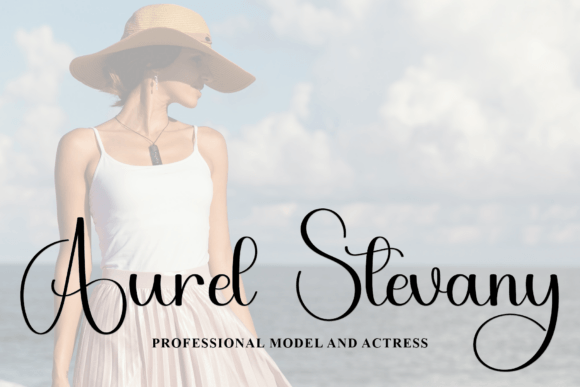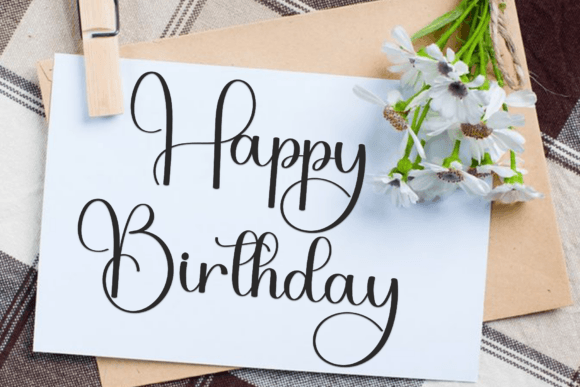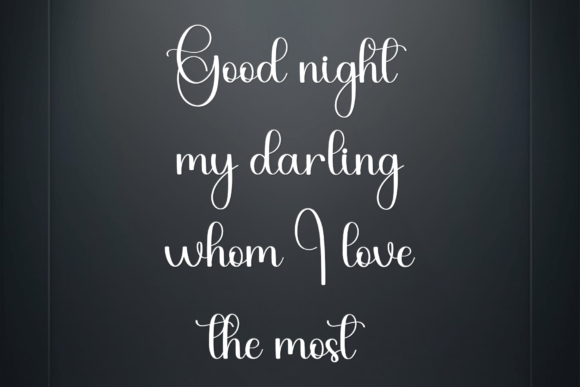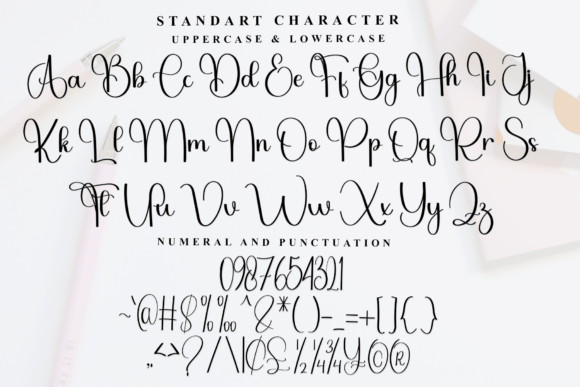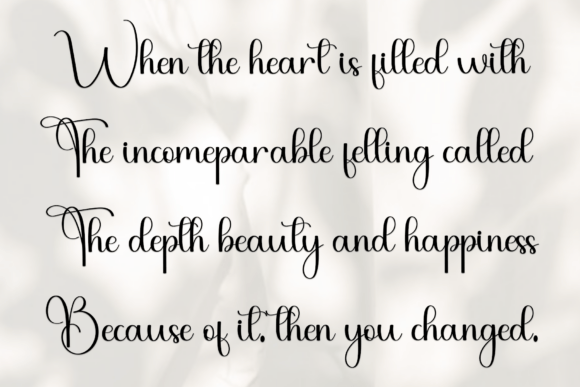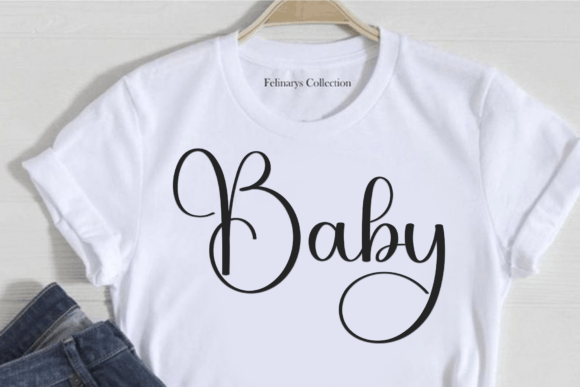
Introducing Biography Font: The Perfect Blend of Warmth and Creativity
Are you tired of using the same old fonts for your personal projects, invitations, and social media graphics? Look no further than Biography Font, a casual and creative typeface that exudes warmth and friendliness. With its round, playful strokes, this font creates a relaxed and approachable feel that’s perfect for designers and crafters looking to add a personal touch to their work.
The Charm of Biography Font
Biography Font is a hand-drawn font that boasts a charming, unique aesthetic that’s sure to make your designs stand out. Its playful strokes and rounded edges create a fun and inviting feel that’s perfect for a wide range of applications, from personal projects and invitations to social media graphics and more. Whether you’re a designer, crafter, or simply someone who loves to create, Biography Font is the perfect choice for anyone looking to add a touch of warmth and personality to their work.
Key Features of Biography Font
- Casual and Creative: Biography Font is a casual and creative typeface that’s perfect for designers and crafters looking to add a personal touch to their work.
- Warm and Friendly: With its round, playful strokes, Biography Font exudes warmth and friendliness, creating a relaxed and approachable feel that’s perfect for personal projects and social media graphics.
- Hand-Drawn Aesthetic: Biography Font boasts a charming, hand-drawn aesthetic that adds a fun and unique touch to any design.
Why Choose Biography Font?
So why choose Biography Font for your next project? Here are just a few reasons why this font is a great choice:
- Perfect for Personal Projects: Biography Font is perfect for personal projects, such as photo albums, scrapbooking, and other crafty endeavors.
- Great for Invitations: With its warm and friendly feel, Biography Font is a great choice for invitations, including birthday parties, baby showers, and other celebrations.
- Ideal for Social Media Graphics: Biography Font is also perfect for social media graphics, including Facebook posts, Instagram stories, and other online content.
Tips for Using Biography Font
Here are a few tips for using Biography Font in your designs:
- Pair with Other Fonts: Biography Font pairs well with other fonts, including serif and sans-serif fonts. Try pairing it with a bold font for a fun and playful look.
- Experiment with Colors: Biography Font looks great in a wide range of colors, from bright and bold to soft and pastel. Experiment with different colors to find the perfect look for your design.
- Use for Headings and Titles: Biography Font is perfect for headings and titles, but it can also be used for body text. Try using it for short paragraphs or quotes.
In conclusion, Biography Font is a casual and creative typeface that’s perfect for designers and crafters looking to add a personal touch to their work. With its warm and friendly feel, charming hand-drawn aesthetic, and PUA Encoded glyphs, this font is a great choice for personal projects, invitations, social media graphics, and more. So why not give Biography Font a try and see how it can add a touch of warmth and personality to your designs?